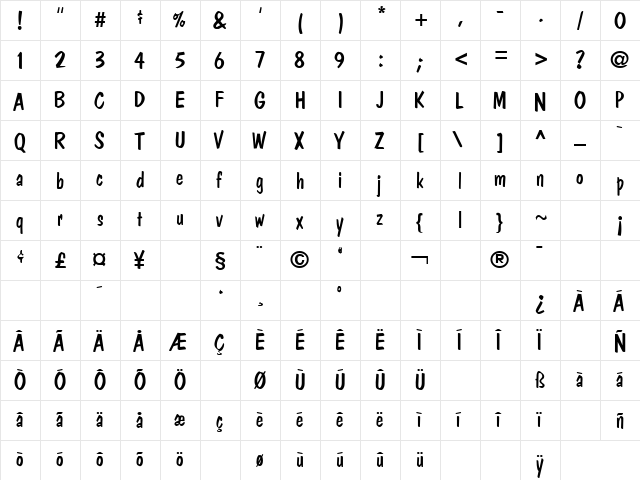
Claridge Regular
Design Context for Claridge Typeface
Claridge is a composed and adaptable typeface that performs quietly and consistently across a wide range of design contexts.